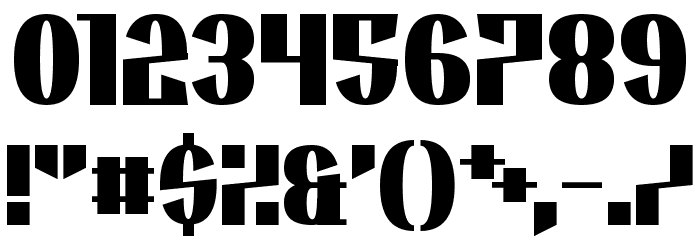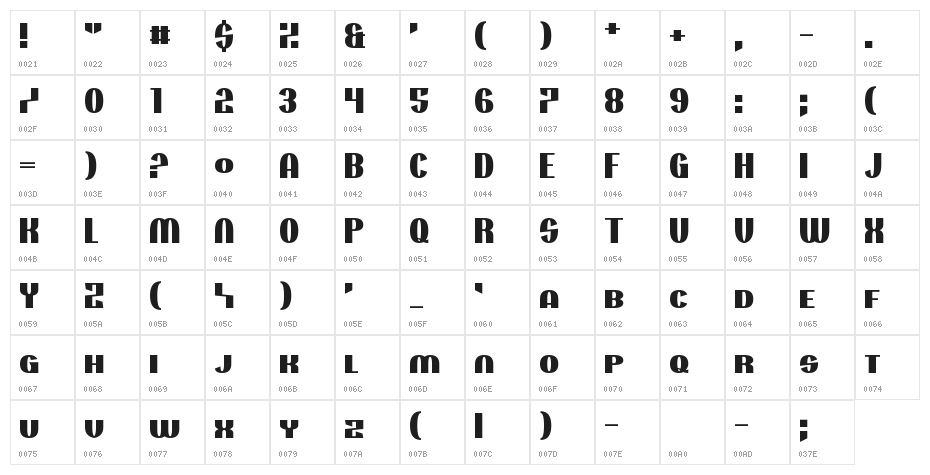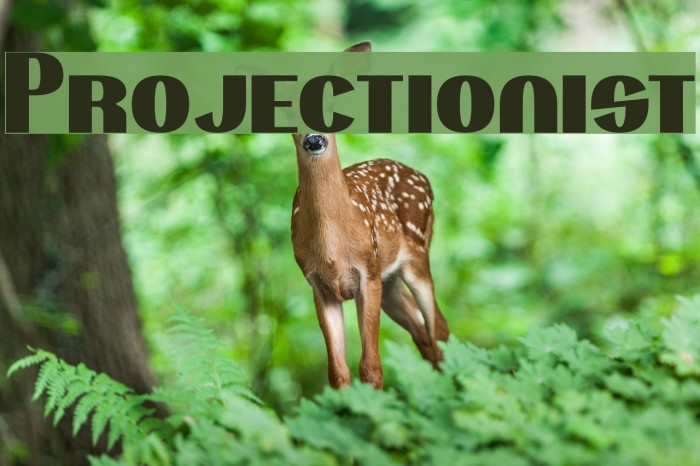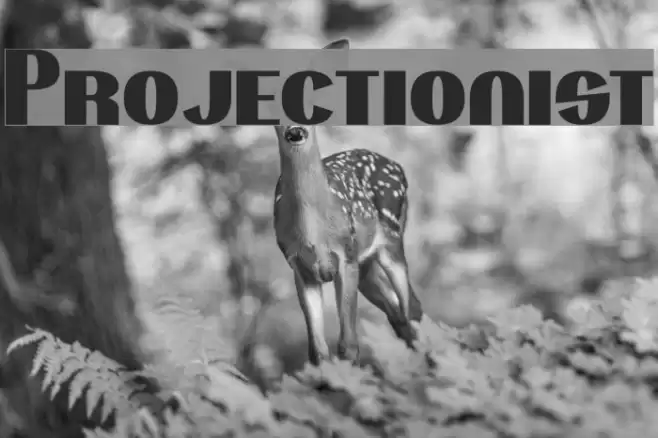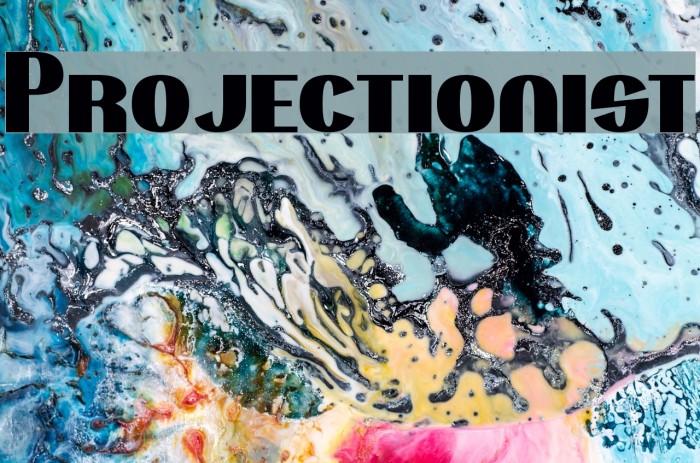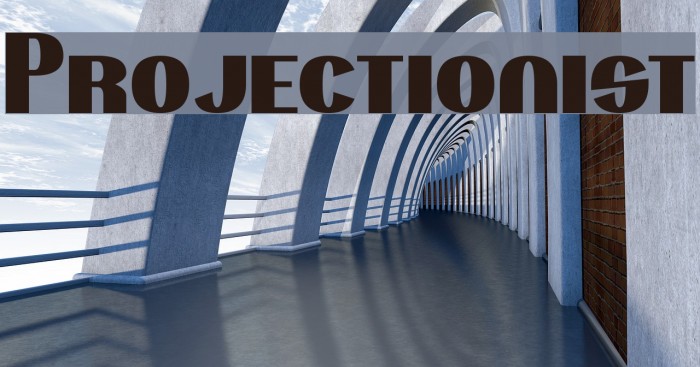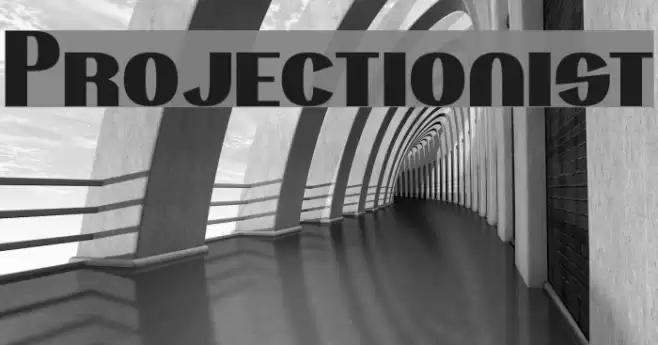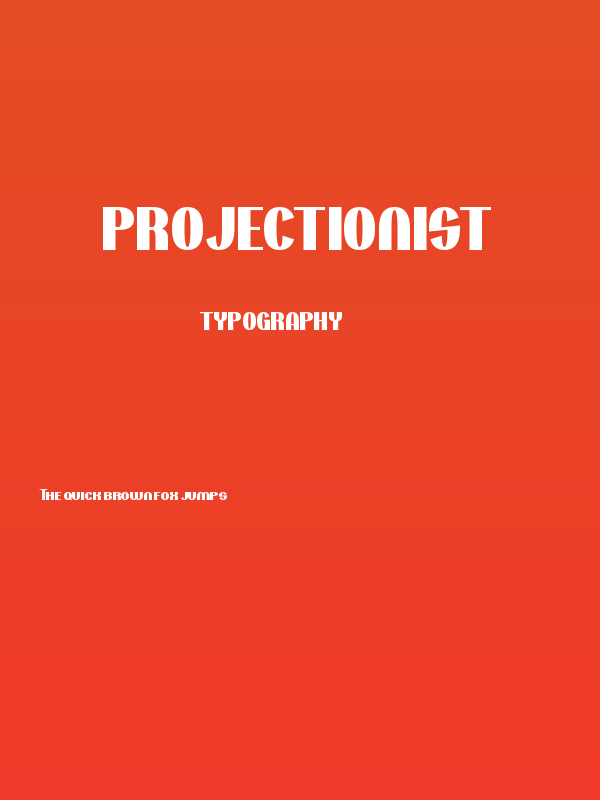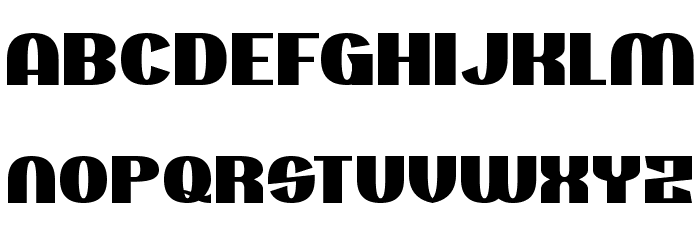
Projectionist Font
Projectionist Description
This font features a bold and striking design with a strong geometric influence. The characters are constructed with thick, block-like shapes that create a sense of solidity and impact. The uppercase letters are particularly distinctive, with unique cutouts and angles that add a modern flair. The lowercase letters maintain the same boldness, ensuring consistency across the typeface. Numbers and special characters follow the same design principles, making them easily recognizable and visually cohesive. The overall style is both modern and decorative, making it suitable for eye-catching designs.